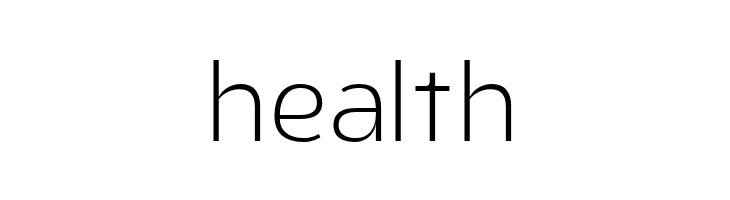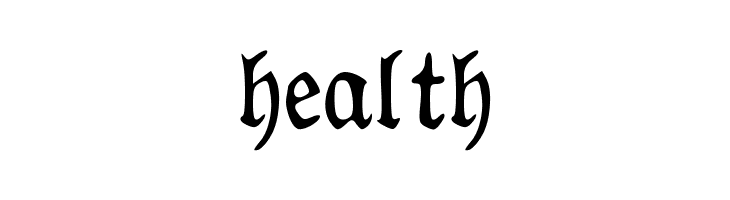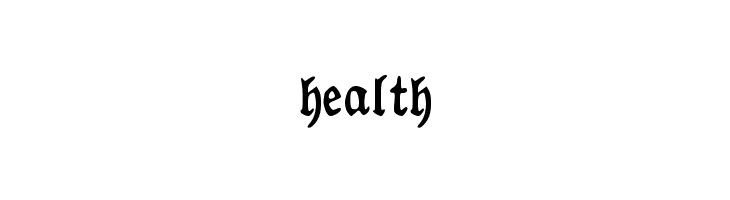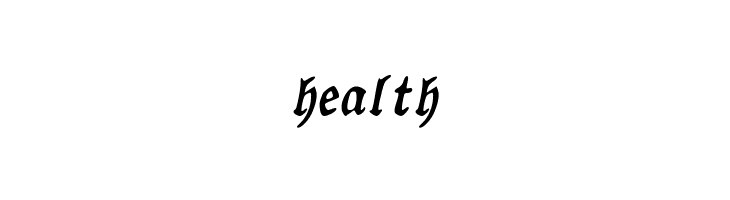
A bold, modern font with thick, uniform strokes and strong visual impact.
A modern, geometric sans-serif font with clean lines and balanced spacing.
A bold, heavy font with uneven strokes and a strong, artistic presence.
A decorative, medieval-inspired font with intricate flourishes.
A bold, italicized decorative font with a mystical, enchanting style.
An ornate, medieval-inspired italic font with decorative flourishes.
A lively and expressive handwritten font with fluid, dynamic strokes.
A dynamic and elegant script font with fluid, cursive letterforms.
A dynamic and elegant script font with flowing, cursive letterforms.